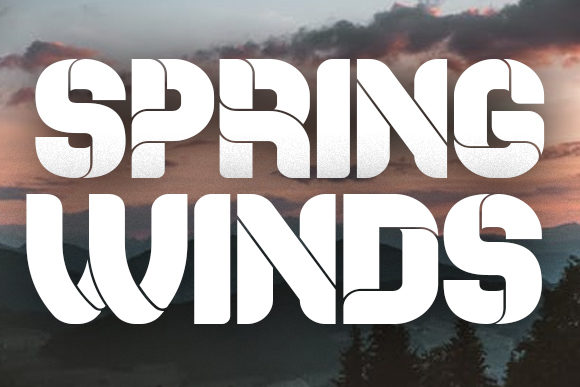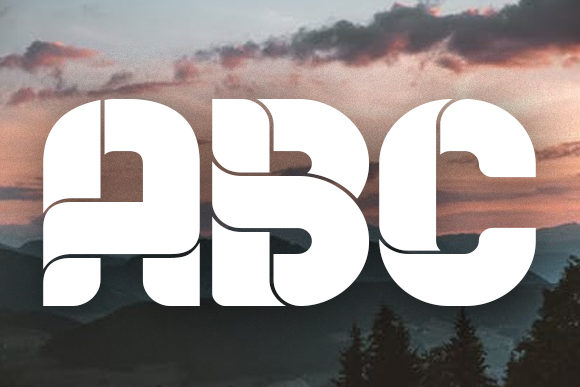
Discover the Timeless Charm of Browser Font: Elevate Your Designs with a Classic yet Friendly Style
In the realm of typography, few fonts manage to strike a balance between classic elegance and friendly approachability. Browser Font, however, achieves this delicate equilibrium with remarkable finesse. This fantastic display font is designed to infuse your designs with a sense of timelessness and warmth, making it an indispensable asset for designers and crafters seeking to create original and outstanding works.
The Essence of Browser Font
Browser Font boasts an incredibly classic style that instantly evokes a sense of nostalgia and sophistication. Its elegant lines and curves are meticulously crafted to provide a sense of refinement and luxury, perfect for projects that demand a high level of visual appeal. Yet, despite its classic undertones, Browser Font retains a friendly feel that prevents it from feeling too formal or distant. This unique blend of classic and friendly makes it versatile enough to be used across a wide range of design projects, from branding and advertising to packaging and digital media.
Why Choose Browser Font?
So, what sets Browser Font apart from other display fonts on the market? Here are a few compelling reasons why designers and crafters are gravitating towards this exceptional typeface:
- Timeless Appeal: Unlike trendy fonts that quickly become outdated, Browser Font’s classic style ensures it remains relevant and stylish for years to come.
- Versatility: Its friendly yet sophisticated demeanor makes it suitable for a variety of design applications, from editorial and advertising to web design and crafting.
- Legibility: Browser Font is designed not only to be beautiful but also highly legible, ensuring your message is conveyed clearly and effectively.
- Originality: With Browser Font, you can create designs that stand out from the crowd, thanks to its unique blend of classic and friendly characteristics.
Applications of Browser Font
The versatility of Browser Font makes it an excellent choice for a multitude of design projects. Here are some of the most popular applications:
- Branding and Logo Design: Create memorable and impactful logos that convey your brand’s personality with Browser Font.
- Advertising and Marketing Materials: Elevate your advertising campaigns with elegant and engaging typography that captures attention.
- Web Design: Enhance your website’s aesthetic and user experience with a font that combines style and readability.
- Packaging Design: Stand out on store shelves with packaging that features a distinctive and appealing typographic style.
- Crafting and DIY Projects: Add a professional touch to your handmade products, such as labels, cards, and posters.
Tips for Using Browser Font Effectively
To maximize the impact of Browser Font in your designs, consider the following tips:
- Pair it with Complementary Fonts: Combine Browser Font with simpler fonts to create visual hierarchy and contrast.
- Experiment with Colors and Textures: Take advantage of Browser Font’s versatility by experimenting with different colors and textures.
- Consider the Context: Tailor your use of Browser Font to the specific project, adjusting size, style, and color to suit the medium and audience.
Browser Font is more than just a display font; it’s a tool for designers and crafters to create original, outstanding, and memorable designs. Its classic yet friendly style offers a unique opportunity to elevate your projects with a touch of elegance and approachability. Whether you’re working on branding, advertising, web design, or crafting, Browser Font is sure to become an essential part of your creative arsenal.
Embrace the timeless charm of Browser Font and discover a world of creative possibilities that blend sophistication with warmth and style.